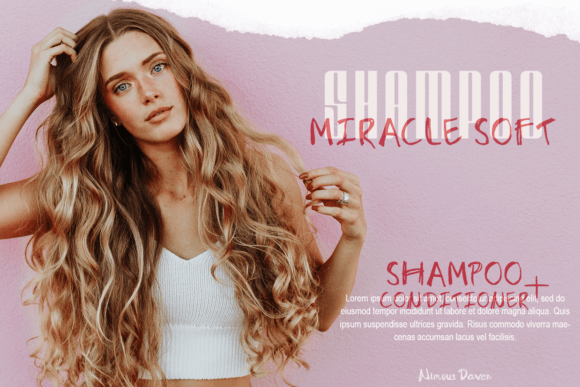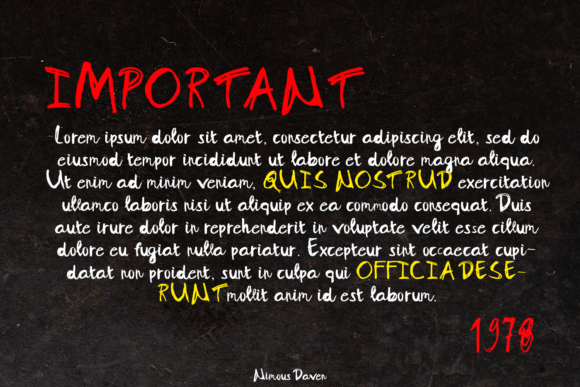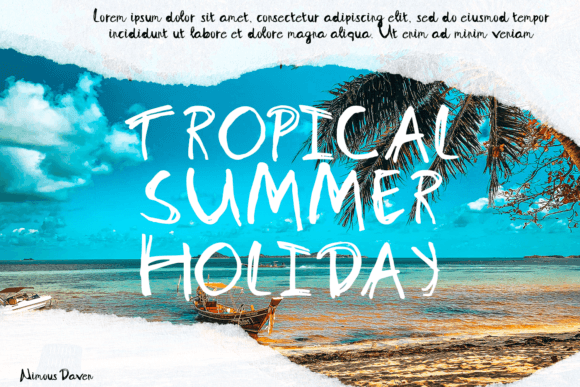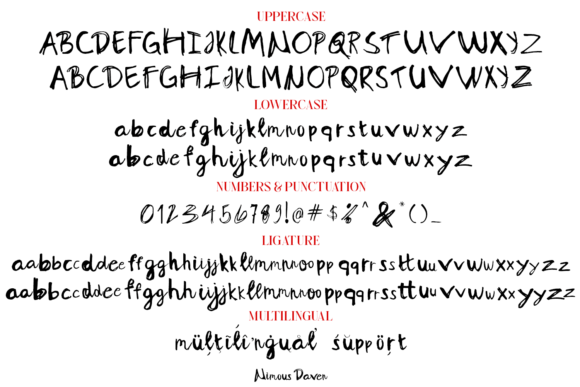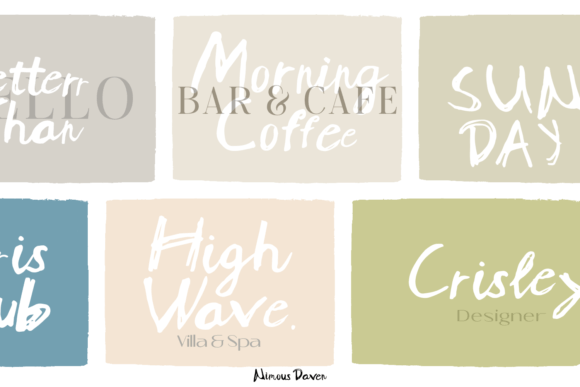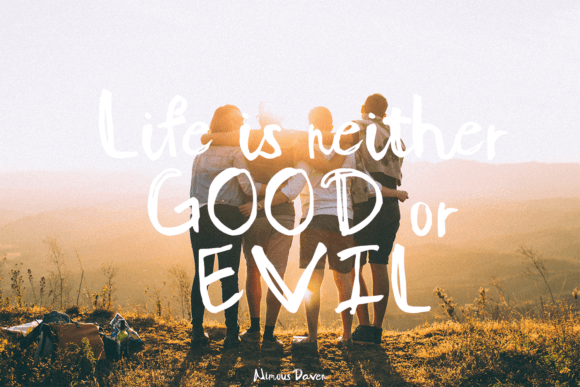
Introduction to Nimous Daven Font
Nimous Daven is a distinct hand-drawn font.
Nimous Daven is great for branding, posters, logos, invitation, writing, and headings .
Key Features of Nimous Daven Font
Why Choose Nimous Daven Font?